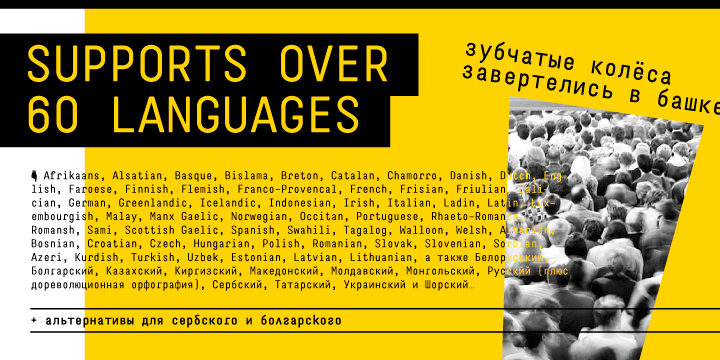
Hello, i'm a russian blogger and developer. I want to make a review of fonts, targeted for software developers(using it in IDE, editors).
Due my location, i can't get a good information about best fonts(including proprietary fonts) for my work. Yes, my friends use fonts like Arial, Courier New, Liberation. It's so scary.
So, i want to find more information in asking of you, of professionals in fonts chosing :)
Now i'm scanning google in searching of better fonts(like monaco, incosolata etc), but all pages are old. Maybe, you can tell me something new about fonts for development?
I found alot of proprietary font, but i can't try it in my IDE(Eclipse and emacs). But, if i have a some more information about what fonts need to try - i'll buy it.
So, can you advise me best monospace fonts(better if it targetted for software developers) you ever seen? No matter how much it costs.
Requirements to this font are simple:
It must be monospaced.
It must have dotted of slashed zero(but if font really awesome, i can ignore it).
If must have a cyrillic glyphs(not really needs, but it'll be cool due my location).
Also, i know what font looks different in different OS, but i need fonts for any OS for my review, becouse i'll make a review of fonts on each system(windows, linux, mac os) and i'll choose different fonts for each system.
Nitti is monospaced, has a dotted zero (alternate) and supports Cyrillic:
Consolas from Luc(as) de Groot (Consolas is a part of the Cleartype fonts collection coming with Windows Vista, Windows 7).
Without Cyrillic:
Two free fonts:
Dejavu Sans Mono has a dotted zero, and world-wide characters
Inconsolota has a slashed zero
Droid Sans Mono
The comments mention several fonts not reviewed by the author.
Don't forget Menlo, or should I say Vera Sans Mono?
I will not embarrass myself by attempting to comment on its typographic merits, but I have personally found a monospaced font called "TI Uni" very pleasing to my eyes when staring at code for hours on end.
It was used for code snippets in Texas Instruments' graphing calculator manuals for a while (might still be) and they had it as a free download on their site. You can probably find it with a quick google search.
'Default' from Siberia is perfect to me